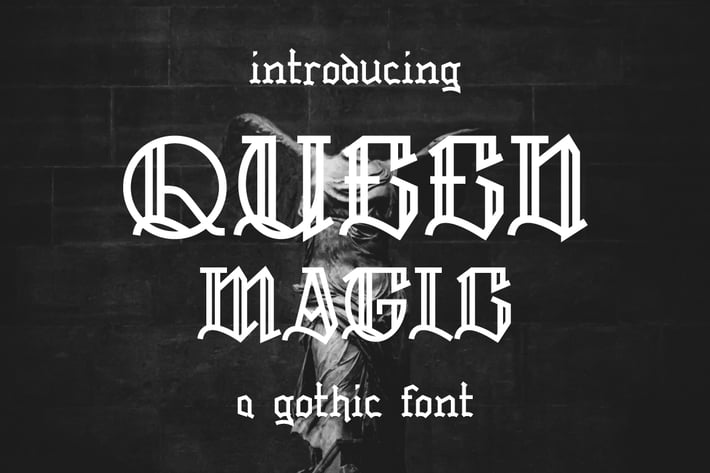
Queen Magic - Blackletter Font
Introducing Queen Magic, a unique, beauty, and vintage blackletter font.
+ Uppercase
+ Lowercase
+ Numerals
+ Punctuation